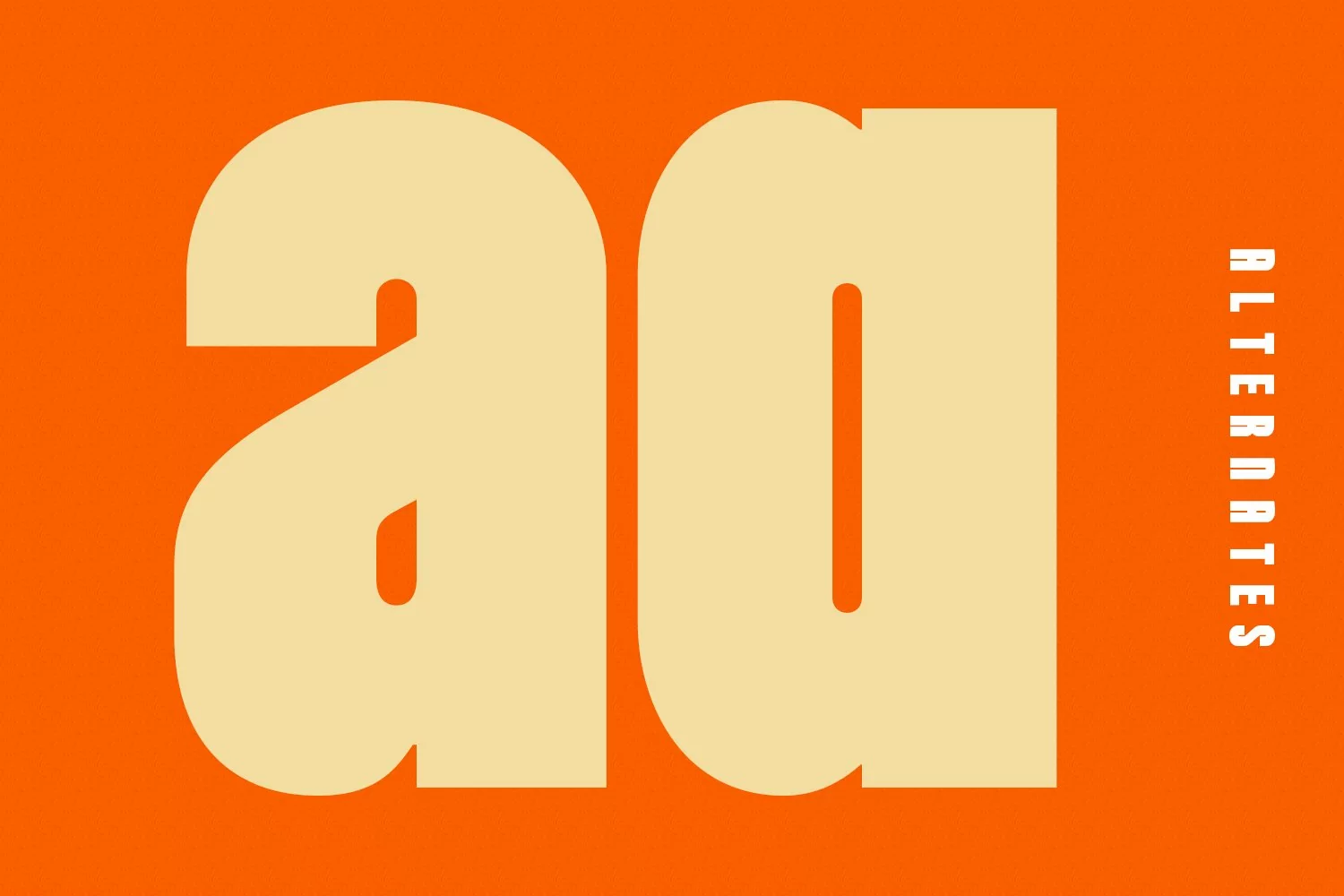
Nickels is a Fancy Bold Sans Serif font. fun character with a bit of ligatures. To give you an extra creative work. Nickels font support multilingual more than 100+ language. This font is good for Headline, logo design, Social media, Movie Titles, Books Titles, a short text even a long text letter and good for your secondary text font with sans or serif. Make a stunning work with Nickels font.
Nickels